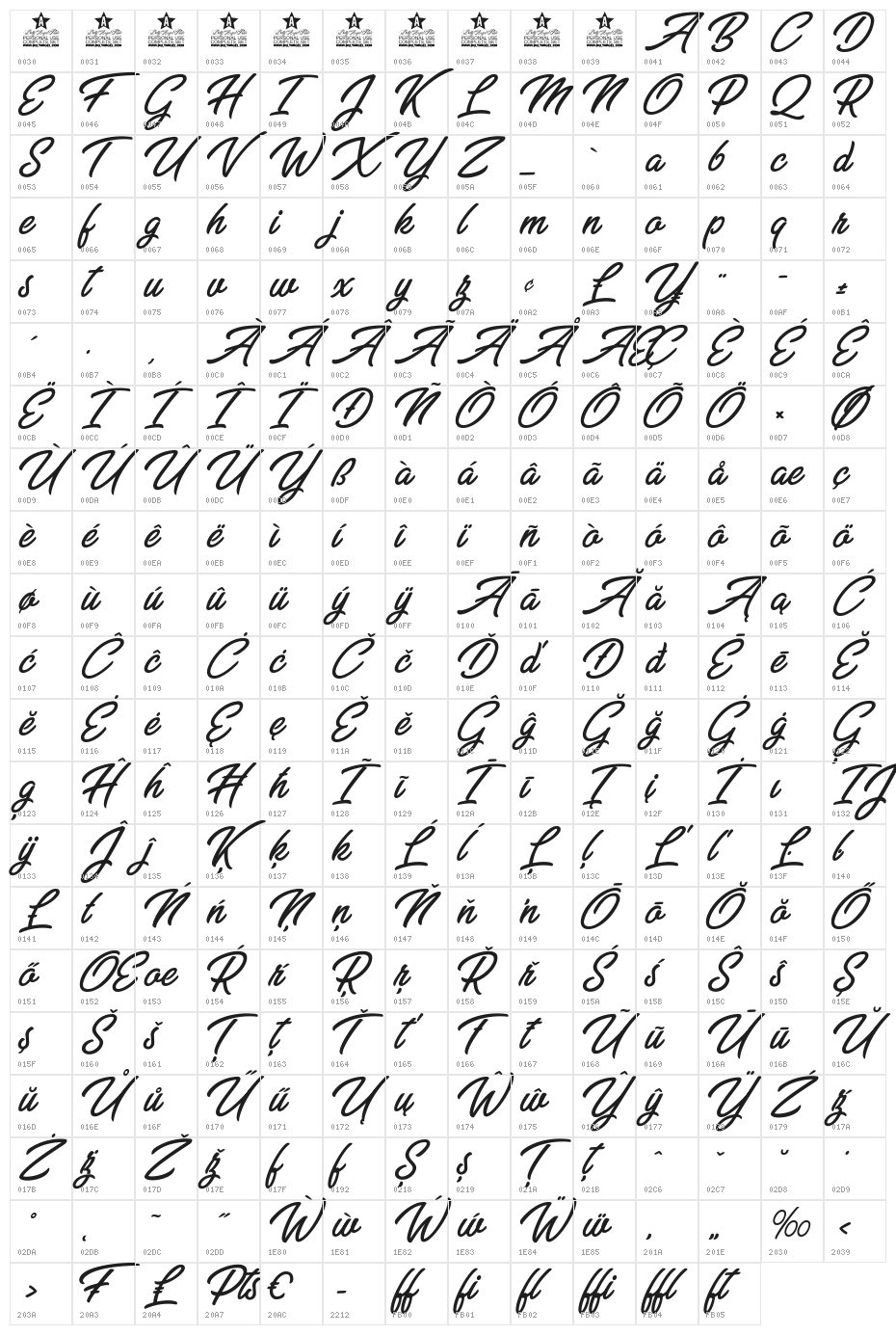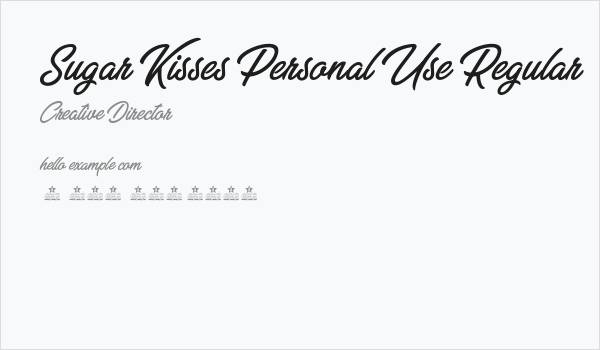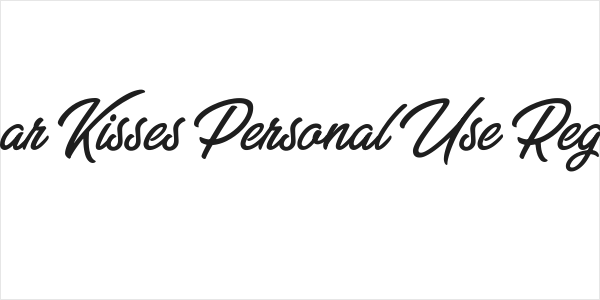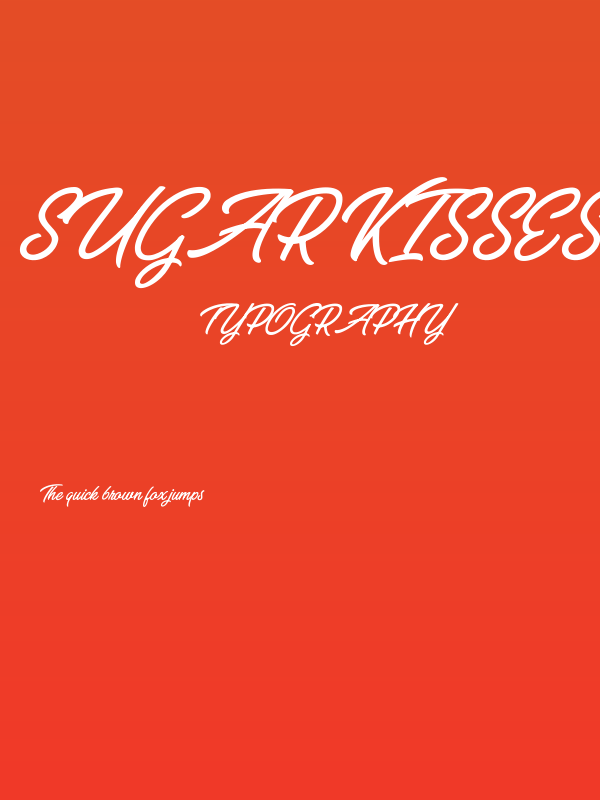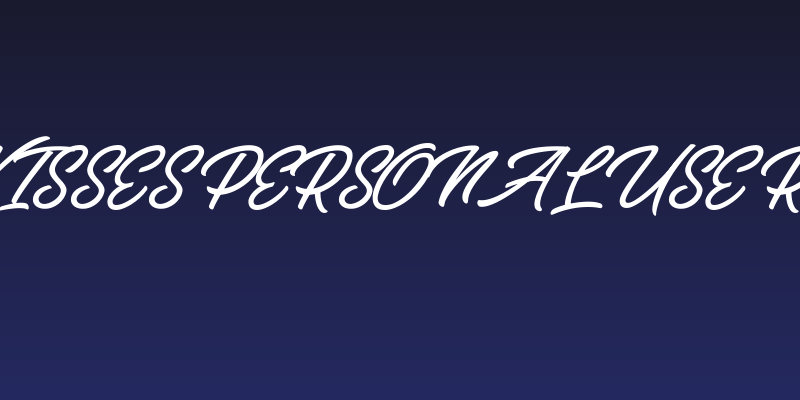
Sugar Kisses Personal Use Regular Font
Sugar Kisses Personal Use Regular Description
This font features a flowing, cursive style with elegant, sweeping strokes that give it a handwritten appearance. The uppercase letters are bold and prominent, while the lowercase letters maintain a consistent fluidity, enhancing the script's overall charm. The characters are closely spaced, creating a sense of continuity and movement. The font's design is both sophisticated and playful, making it suitable for projects that require a personal touch. The contrast in stroke thickness is medium, providing a balanced look that is easy to read while maintaining its decorative appeal.
| Proposed Projects | Ideal for wedding invitations, greeting cards, personal branding, and decorative signage. |